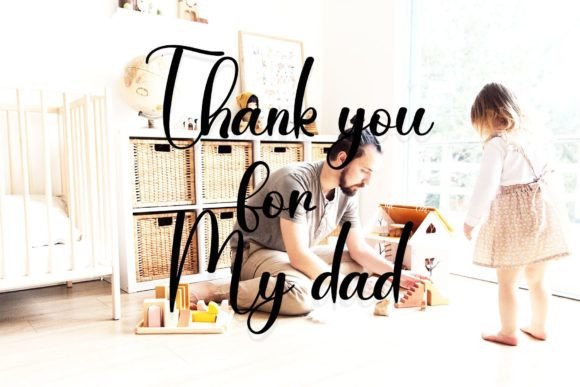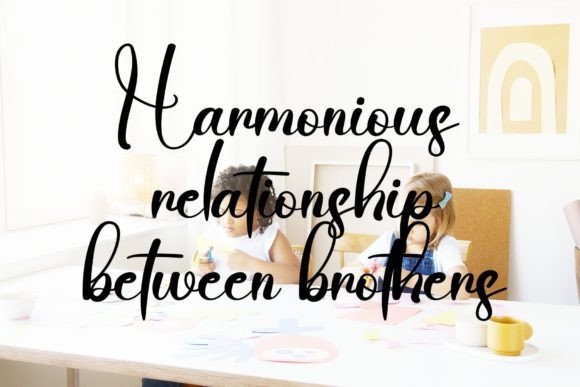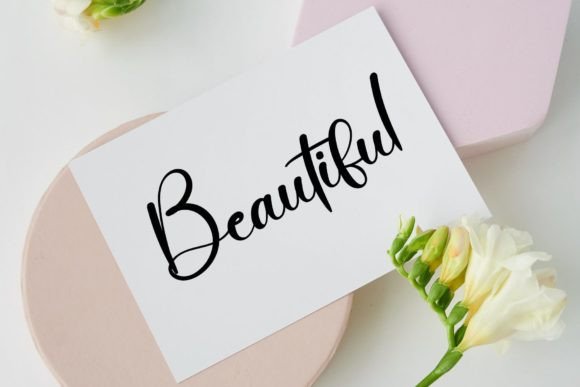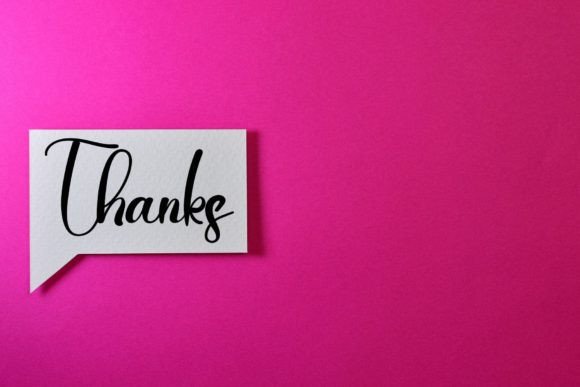
The Sweet Charm of Bubbly Font: A Designer’s Delight
I’ll never forget the time I was working on a luxury brand’s packaging design, and I just couldn’t find the right font to match their high-end vibe. The client wanted something elegant, yet playful, and I was on the verge of pulling my hair out. That’s when I stumbled upon Bubbly Font, and it was love at first sight! 💕
This sweet and beautiful handwritten font has been a game-changer for my design projects, and I’m excited to share its charm with you. Featuring characters that dance along the baseline, Bubbly Font is sure to add a luxury spark to any design project you wish to create!
An Honest Review of Bubbly Font
- 💫 Elegant and luxurious feel, perfect for high-end branding and packaging designs
- 🎉 Unique character dance along the baseline, adding a playful touch to any design
- 🌈 Beautifully crafted with attention to detail, making it a joy to work with
- ⚠️ Some characters may not work well in all design contexts, requiring manual adjustments
- 🤔 Limited availability of stylistic alternates, which may not be a deal-breaker for some designers
The Designer Inspiration Behind Bubbly Font
The story behind Bubbly Font is one of passion and creativity. The font’s designer, inspired by the elegance of luxury brands and the playfulness of handwritten fonts, crafted Bubbly Font to bring a touch of sophistication and whimsy to design projects. With its unique character dance and beautiful craftsmanship, Bubbly Font is a testament to the power of typography in design.
| Font Name | Bubbly Font |
| Author | Harlek studio |
Q: What is Bubbly Font best suited for?
A: Bubbly Font is perfect for luxury branding, packaging designs, and high-end editorial projects.
Q: Is Bubbly Font suitable for body text?
A: While Bubbly Font is highly legible, it’s best suited for headlines, titles, and short paragraphs, rather than lengthy body text.